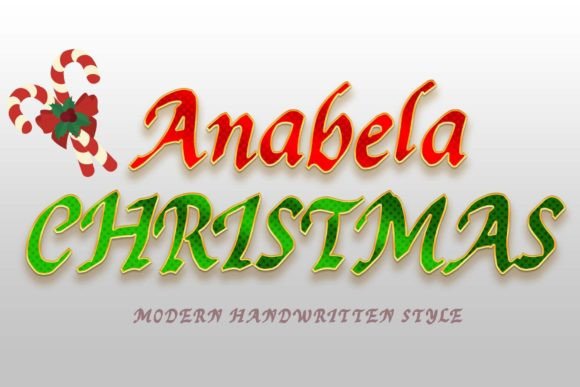
Unleash the festive spirit with "Anabela Christmas," an enchanting script font that will transform your designs into magical masterpieces. Inspired by the charm of Christmas, this font is a captivating blend of elegance and playfulness.
Immerse yourself in the enchanting world of "Anabela Christmas," where each letter dances with a graceful rhythm, exuding a festive aura that will make your designs shine. Its meticulously crafted curves and whimsical details capture the essence of the holiday season, adding a touch of cheer and wonder to every project.
Unlock your creativity with "Anabela Christmas," the perfect font for spreading holiday cheer. Whether you're crafting Christmas invitations, designing posters, or creating eye-catching logos, this font will elevate your work to new heights. Its versatility extends to film titles, book covers, banners, and stickers, ensuring that your designs leave a lasting impression.
Indulge in the festive magic of "Anabela Christmas" and embark on a creative journey where imagination knows no bounds. Let the spirit of Christmas flow through your designs as you create heartwarming projects that resonate with joy and merriment. Embrace the beauty of the season with this remarkable font and make your designs shine brighter than a Christmas star.}